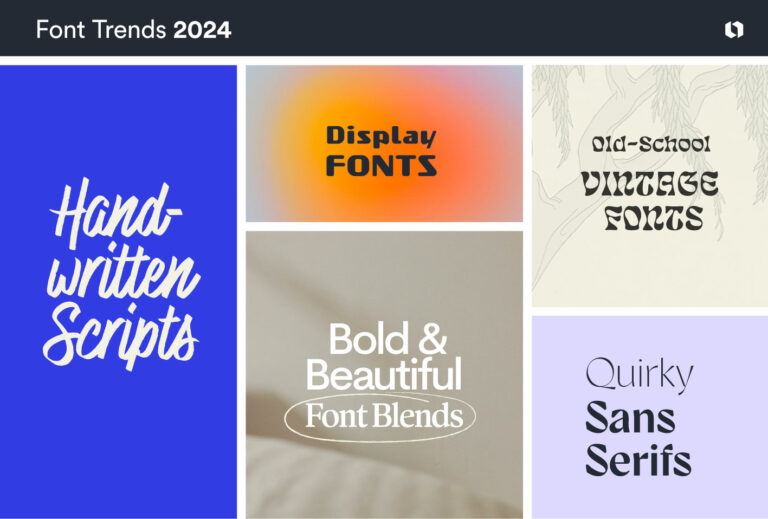
Pinterest Fonts: Top Choices This Week
Introduction: Pinterest Fonts and Visual Appeal
Pinterest is a visual powerhouse, and pinterest fonts play a crucial role in capturing attention and driving engagement. This week, we're diving deep into the top pinterest fonts that are trending and how you can use them to elevate your Pinterest game. Forget scrolling endlessly; we've curated the best pinterest fonts to help you create stunning pins that stand out from the crowd. Are you ready to make your Pinterest content pop? This guide is for you!
Why Pinterest Fonts Matter
Your choice of pinterest fonts says a lot about your brand. It influences how viewers perceive your content and can directly impact click-through rates. A visually appealing pin with the right pinterest fonts attracts the eye and encourages users to learn more. Think of pinterest fonts as the voice of your brand, delivering your message clearly and stylishly.
Trending Pinterest Fonts This Week: A Curated List
Here's a breakdown of trending pinterest fonts this week, categorized for easy reference:
- Serif Fonts:
- Playfair Display: Classic and elegant, ideal for luxury brands or sophisticated content. Using Playfair Display in your pinterest fonts selection will add a touch of class.
- Lora: Readable and refined, Lora works well for longer text blocks or call-to-actions in your pinterest fonts.
- Sans-Serif Fonts:
- Montserrat: Clean and modern, Montserrat is versatile and perfect for a wide range of topics. Consider Montserrat for your pinterest fonts if you're aiming for a contemporary look.
- Open Sans: Highly legible and approachable, Open Sans is a great choice for informative pins. Open Sans ensures readability in your pinterest fonts.
- Script Fonts:
- Great Vibes: Elegant and flowing, Great Vibes adds a touch of romance and personality. Use Great Vibes as your pinterest fonts sparingly to make a bold statement.
- Brush Script MT: Bold and dynamic, Brush Script MT is perfect for highlighting key phrases. Brush Script MT adds a touch of playfulness to your pinterest fonts.
- Display Fonts:
- Bebas Neue: Tall and impactful, Bebas Neue is great for headlines and attention-grabbing text. Using Bebas Neue as your pinterest fonts will make sure your pin is noticed.
- Oswald: Condensed and bold, Oswald works well for tech or finance-related content. Oswald adds professionalism to your pinterest fonts.
How to Choose the Right Pinterest Fonts for Your Brand
Selecting the perfect pinterest fonts involves considering several factors:
- Brand Identity: Your pinterest fonts should align with your overall brand aesthetic. Are you modern and minimalist, or classic and elegant?
- Readability: Ensure your pinterest fonts are easy to read, especially on smaller screens.
- Purpose: The purpose of your pin - to inform, inspire, or sell - should influence your font choice.
- Contrast: Use contrasting pinterest fonts for headlines and body text to create visual interest.
- Font Pairing: Combine pinterest fonts that complement each other. A serif font for the headline and a sans-serif font for the body text often works well.
- Adobe Fonts: A vast library of high-quality fonts for professional use.
- Google Fonts: A free resource with a diverse selection of fonts.
- Creative Market: A marketplace for premium fonts and graphics.
Making Your Pinterest Fonts Accessible
Accessibility is crucial. Ensure your pinterest fonts are large enough to be easily read by visually impaired users. Use high contrast colors to make text stand out against the background. Alt-text is also incredibly helpful, and describes the image for vision impaired users.
Case Studies: Successful Pinterest Font Strategies
Many successful Pinterest accounts use consistent pinterest fonts to build brand recognition. For example, a food blogger might consistently use Playfair Display for recipe titles and Montserrat for ingredient lists. A fashion brand may opt for Great Vibes for promotional pins and Open Sans for product descriptions. By studying these accounts, you can gather insights into effective pinterest fonts strategies.
Tips for Optimizing Pinterest Images with Great Fonts
- Use Text Sparingly: Don't overcrowd your images with text.
- Highlight Key Phrases: Use bold or italic fonts to emphasize important words.
- Maintain Consistency: Stick to a consistent font palette for all your pins.
- Test Different Fonts: Experiment with different fonts to see what resonates with your audience.
- Consider Mobile Users: Optimize your pinterest fonts for mobile viewing.